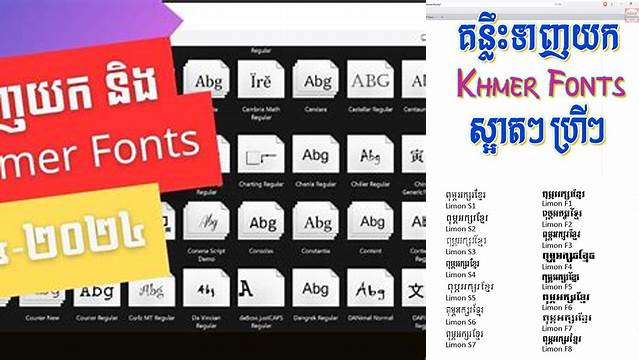
Khmer Fonts: Your Ultimate Guide
Hey everyone! Ever found yourself staring at some Khmer script and thinking, "Whoa, how do I even read that?" Or maybe you're a designer looking to add a touch of Cambodian flair to your work. Well, you're in the right place! This guide is all about Khmer fonts, diving into everything from their history to how you can use them. We'll cover the different types, where to find them, and even how to make sure they look good on your website or in your documents. So, grab a coffee, and let's get started on this Khmer font adventure!
Understanding Khmer Script and Its Importance
Alright, before we dive into the fonts themselves, let's talk about the script. The Khmer script, also known as Aksar Khmer, is the writing system used for the Khmer language (Cambodian). It's a beautiful and intricate script with a long history, dating back to the 7th century. It's not just about pretty letters, though; the Khmer script is a vital part of Cambodian culture and identity. It's used in everything from official documents and books to street signs and advertising. Understanding the script is key to appreciating the fonts. The script's complexity means that designing and using these fonts requires special attention. It's not like your standard Latin fonts! The letters have unique shapes, and they connect and change depending on the surrounding letters. The way the characters are formed adds a special appeal to the language, making it attractive. This is more than just the way the script is written; it's about preserving a language. The glyphs themselves can tell their own stories and have a rich historical background. For example, the shape of some characters has evolved over centuries, reflecting influences from other writing systems and the natural development of the Khmer language. Also, many Cambodians view the script with great pride. It's a symbol of their heritage and something that connects them to their ancestors. That's why selecting the right Khmer font is crucial—you want to ensure it accurately represents the script and the culture it represents.
Khmer script is not just a visual component; it is a portal to Cambodia’s rich history, art, and spiritual heritage. It's like the artistic beauty in the way the font is written that gives Cambodian culture a unique flavor. It reflects the country’s traditions, myths, and social structures and can bring forth the essence of Cambodia’s soul to anyone who reads it. The use of the Khmer script in contemporary contexts like advertising and digital media plays a crucial role in promoting Khmer culture. This keeps Khmer script alive and keeps it prominent in society, encouraging pride and a sense of belonging among Cambodians. Selecting and using Khmer fonts goes far beyond mere aesthetics; it means honoring the history, preserving cultural identity, and promoting the Khmer language and its rich legacy in the digital age.
The Evolution of Khmer Script
The Khmer script has undergone a fascinating evolution throughout history. It's not just a static set of characters; it has evolved over time, influenced by various factors, including the development of the Khmer language, interactions with other cultures, and technological advancements. The evolution of Khmer script is a testament to the creativity and adaptation of Khmer people. Khmer script initially evolved from the Pallava script of South India. Pallava script was used in the 6th to 8th centuries and was introduced during the rise of the Khmer Empire. As the Khmer empire grew, the script was standardized. The script went through stages and modifications, from the Angkor period to the present day. Changes in the script were made to reflect changes in spoken Khmer. The evolution of the script is still happening today because the modern Khmer script has adapted for use on computers, smartphones, and the internet. It also reflects the ever-changing modern society and the adoption of digital technology.
This evolution is important because it shows how resilient and adaptable the script is. It has survived for centuries and is still used today. This means that it has been able to adapt to new technologies and changes in the world. Moreover, this development is crucial in understanding and appreciating the different styles and variations of Khmer fonts. Understanding the history helps us appreciate the present. When choosing a Khmer font, you can choose one that accurately reflects the script's history. This helps make sure that you are honoring its historical context. The use of modern technology is reshaping the ways the script is used and how it is being used, which means that new fonts will keep being developed in the future. This shows how dynamic and flexible the Khmer script is.
Different Types of Khmer Fonts and Their Characteristics
Alright, let's get down to the nitty-gritty: different types of Khmer fonts. Just like with English fonts (think Arial, Times New Roman, etc.), Khmer fonts come in various styles, each with its own personality. The most common types include serif, sans-serif, and display fonts. Each type is suitable for different uses, from body text to headlines. The differences in design characteristics of the fonts and their suitability for different text formats make understanding each font style important. Let's take a closer look at the key characteristics of different Khmer fonts.
- Serif Fonts: Serif fonts have small strokes, or